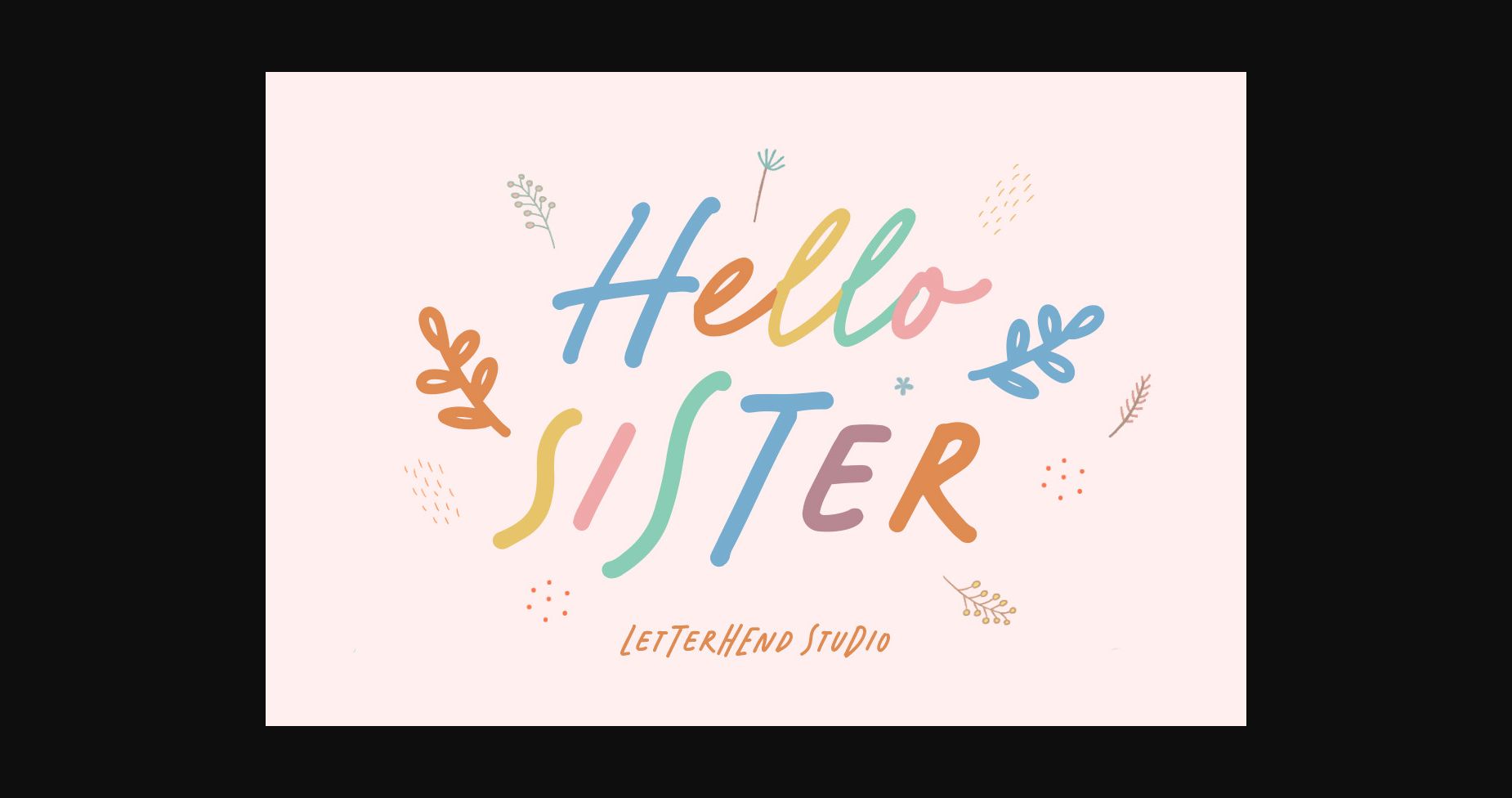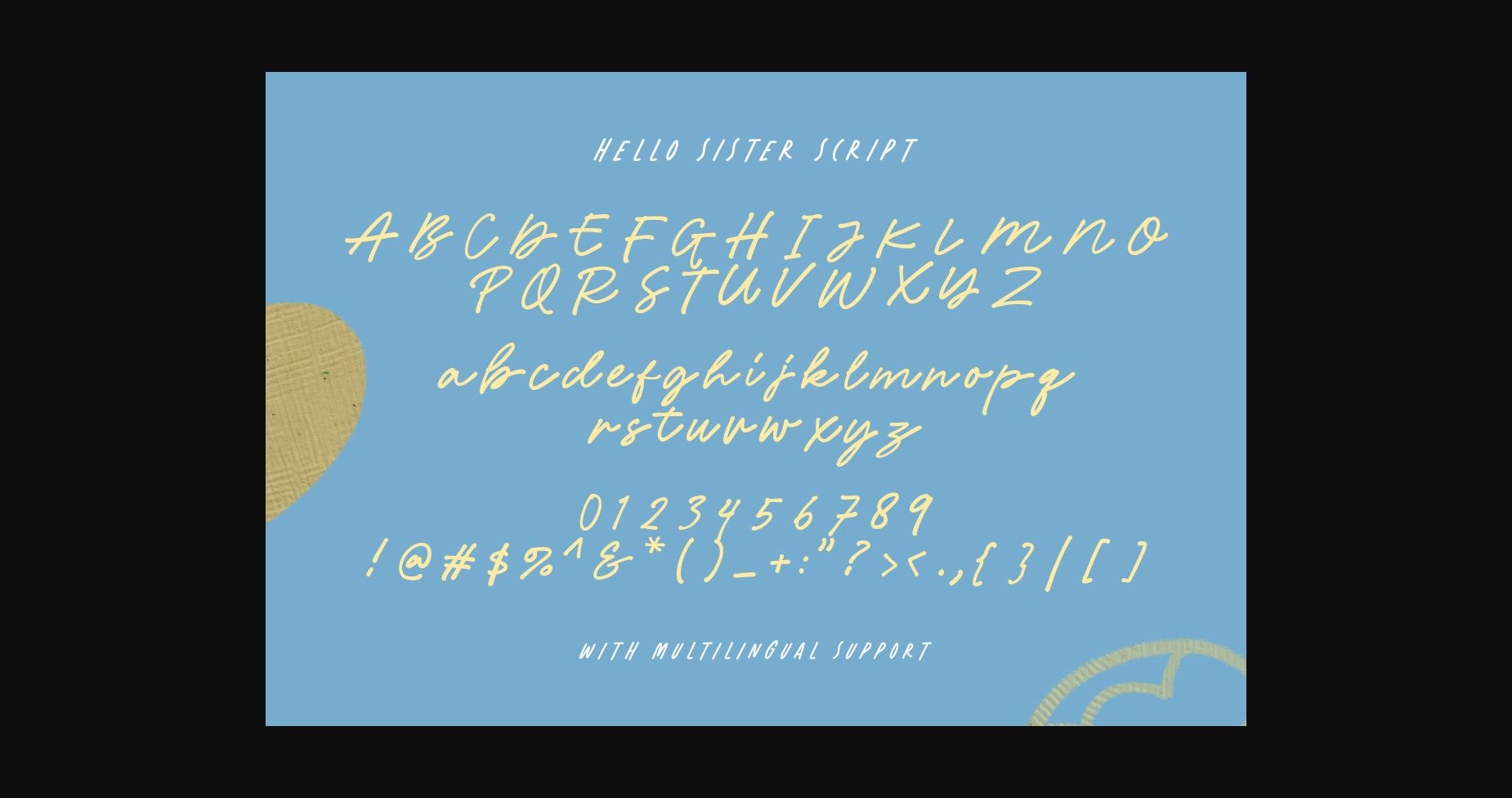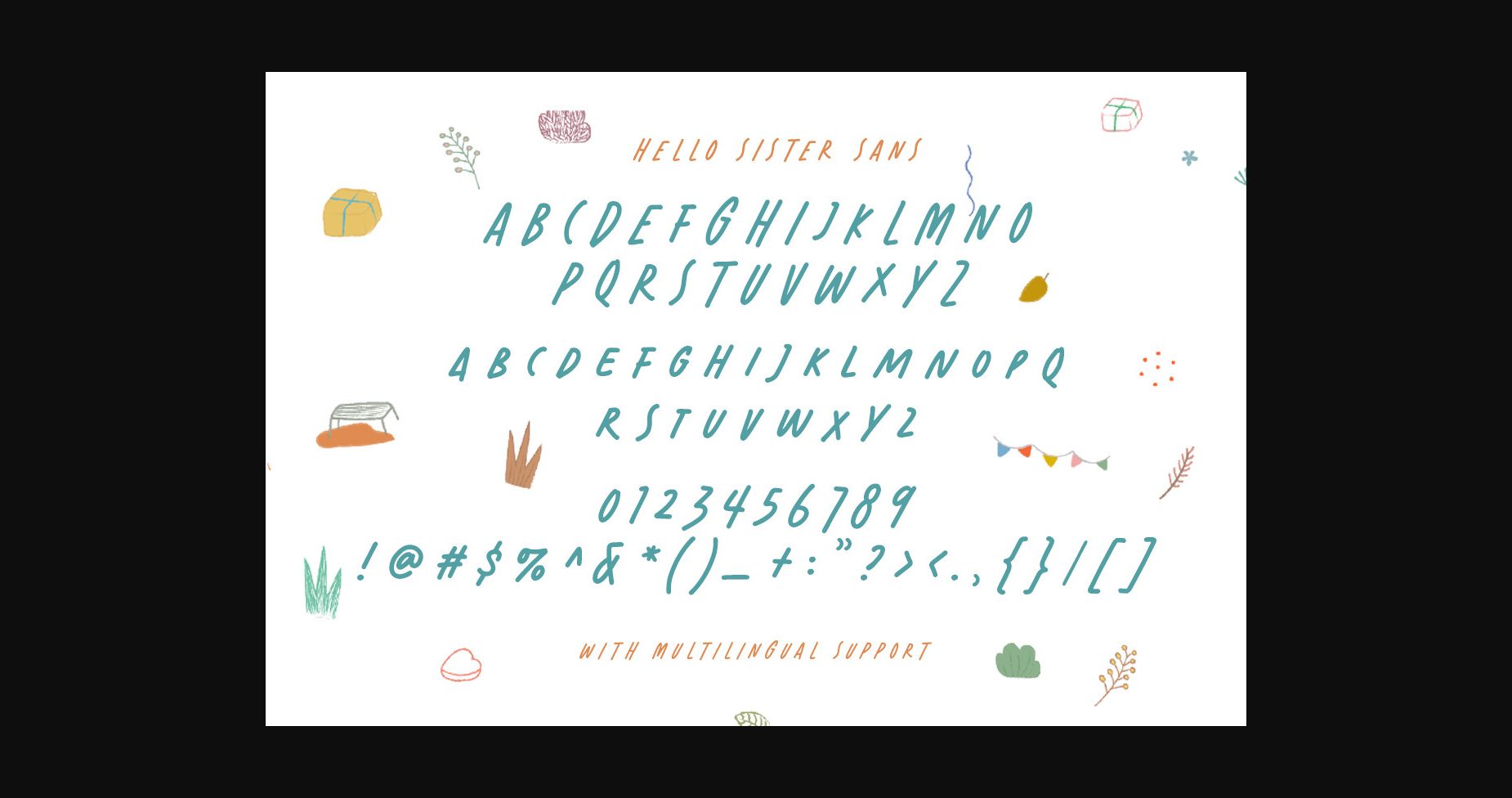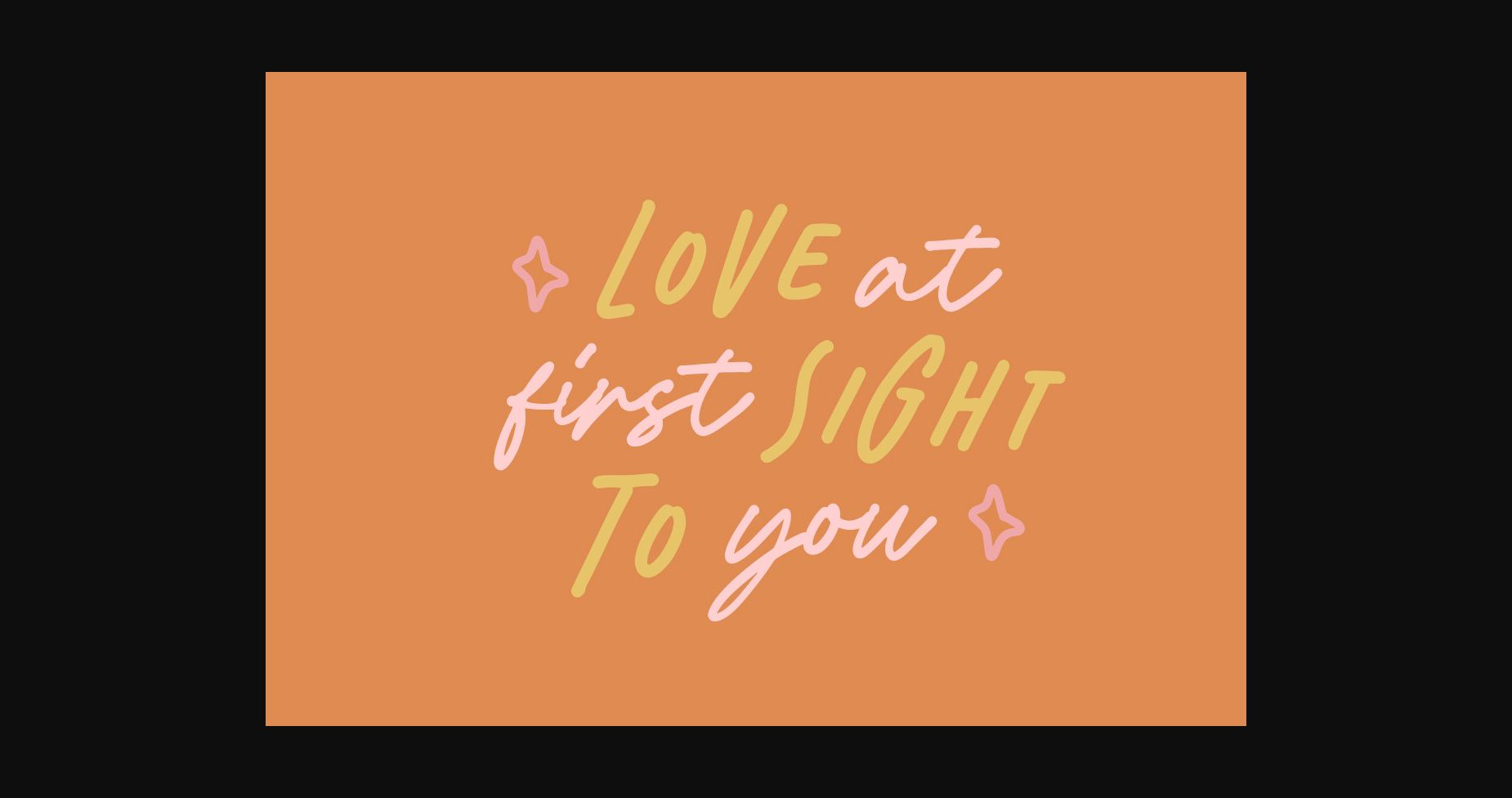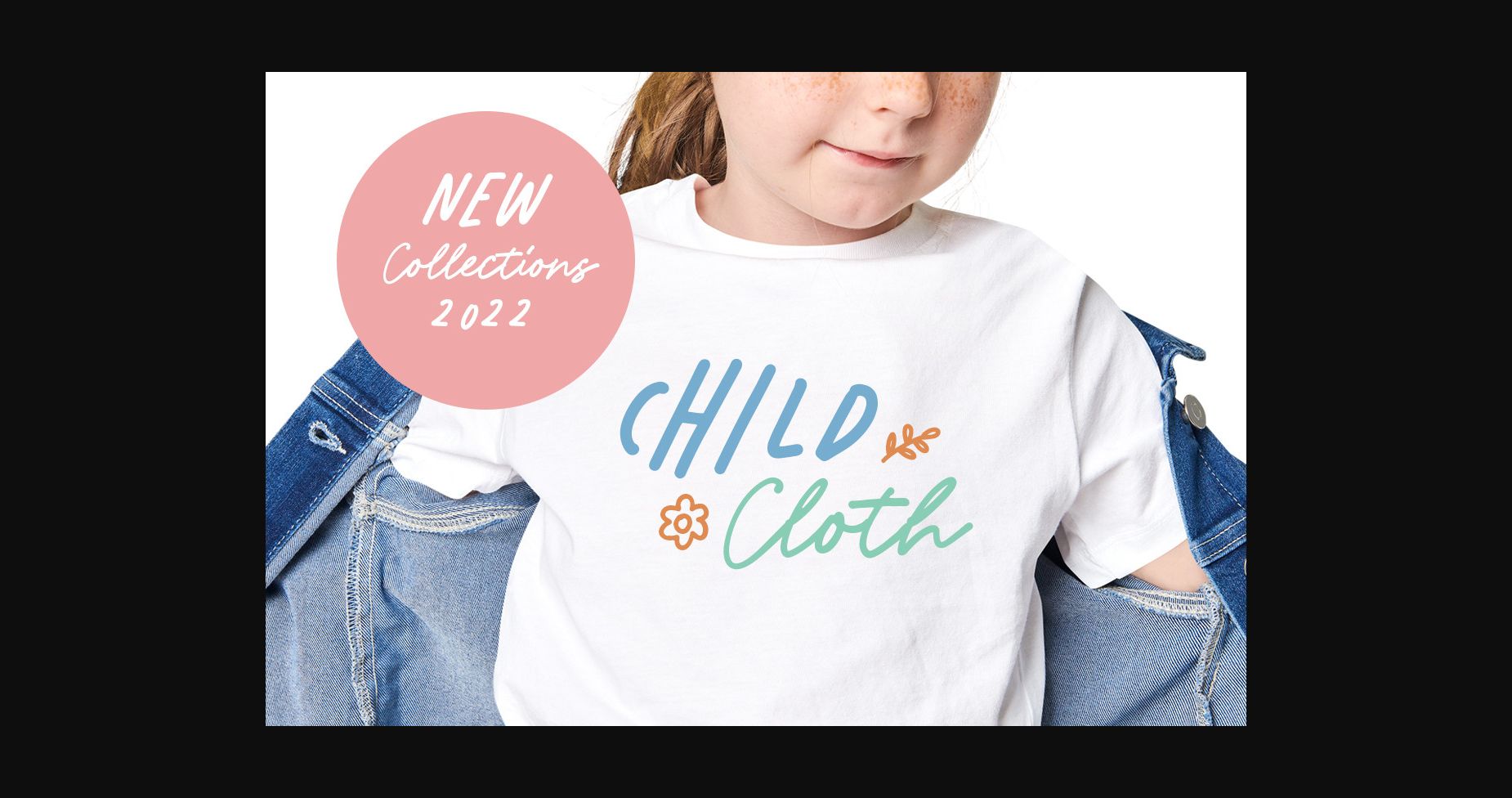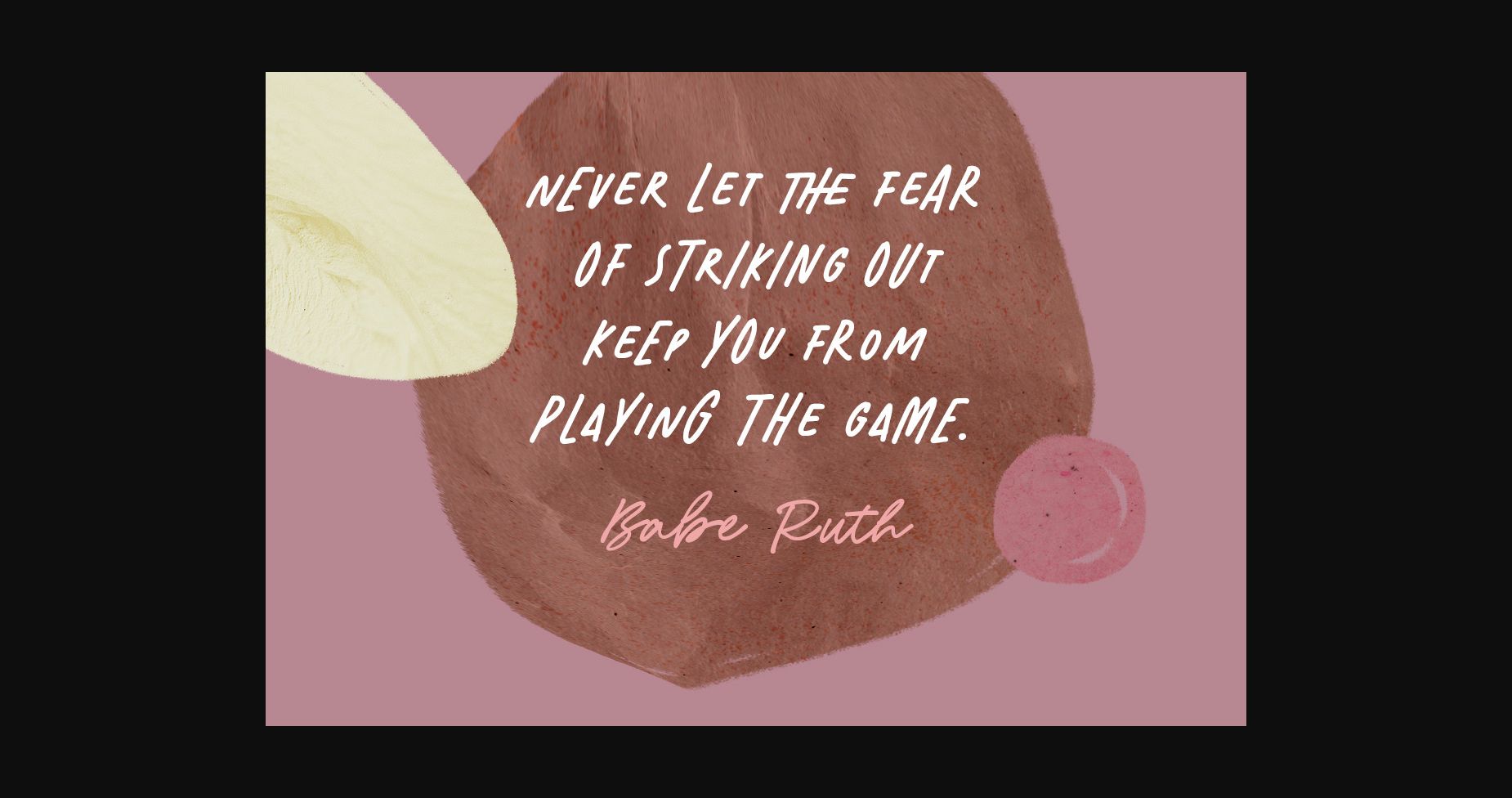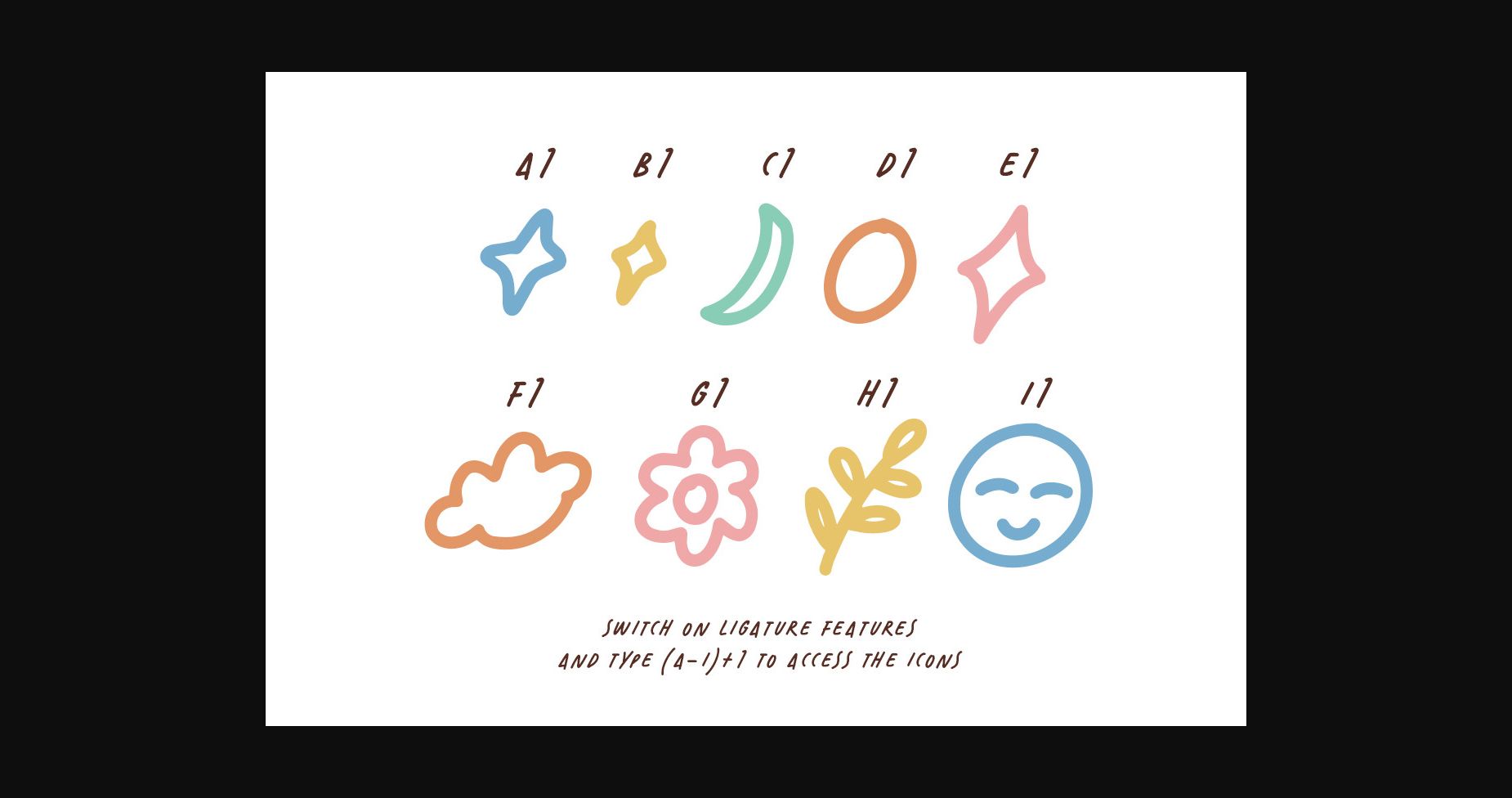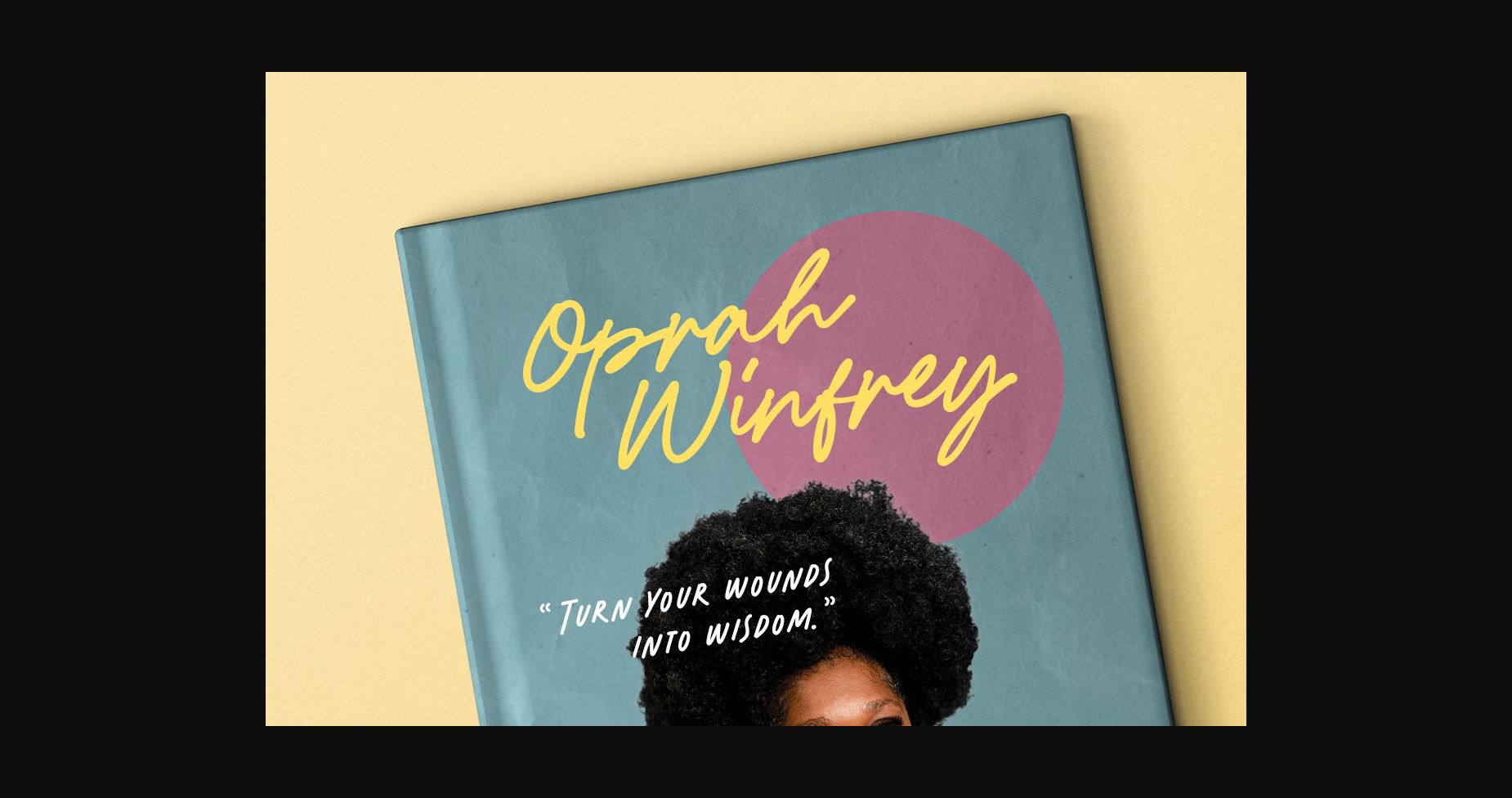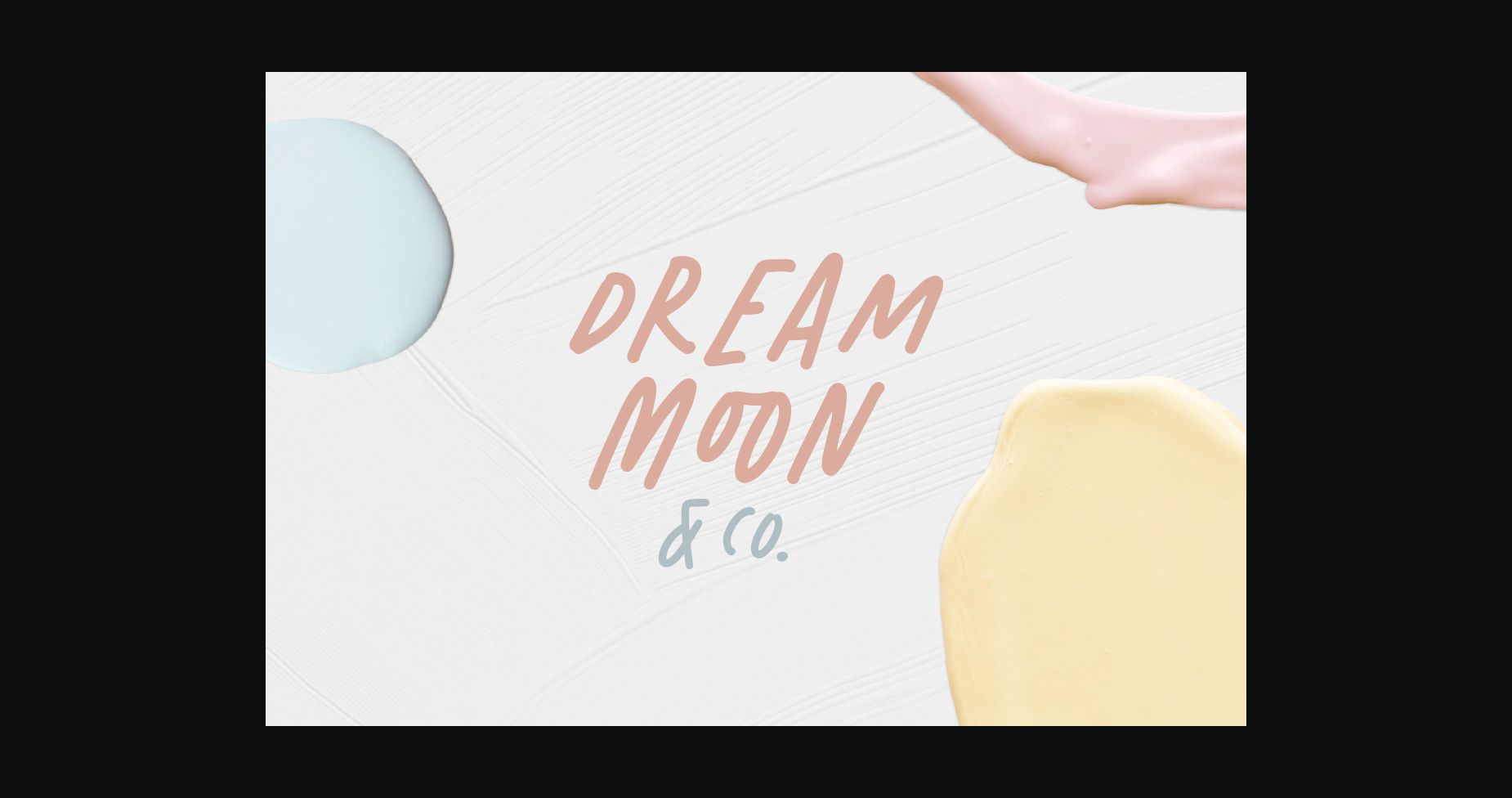
Hello Sister Font
About Hello Sister Font
Hello Sister is a lovely duo font (sans serif and script) with a playful look and a nice, feminine feel. Combined, these fonts are the perfect match for women’s magazines, wedding invitations, personal branding, skincare brans, and so much more!